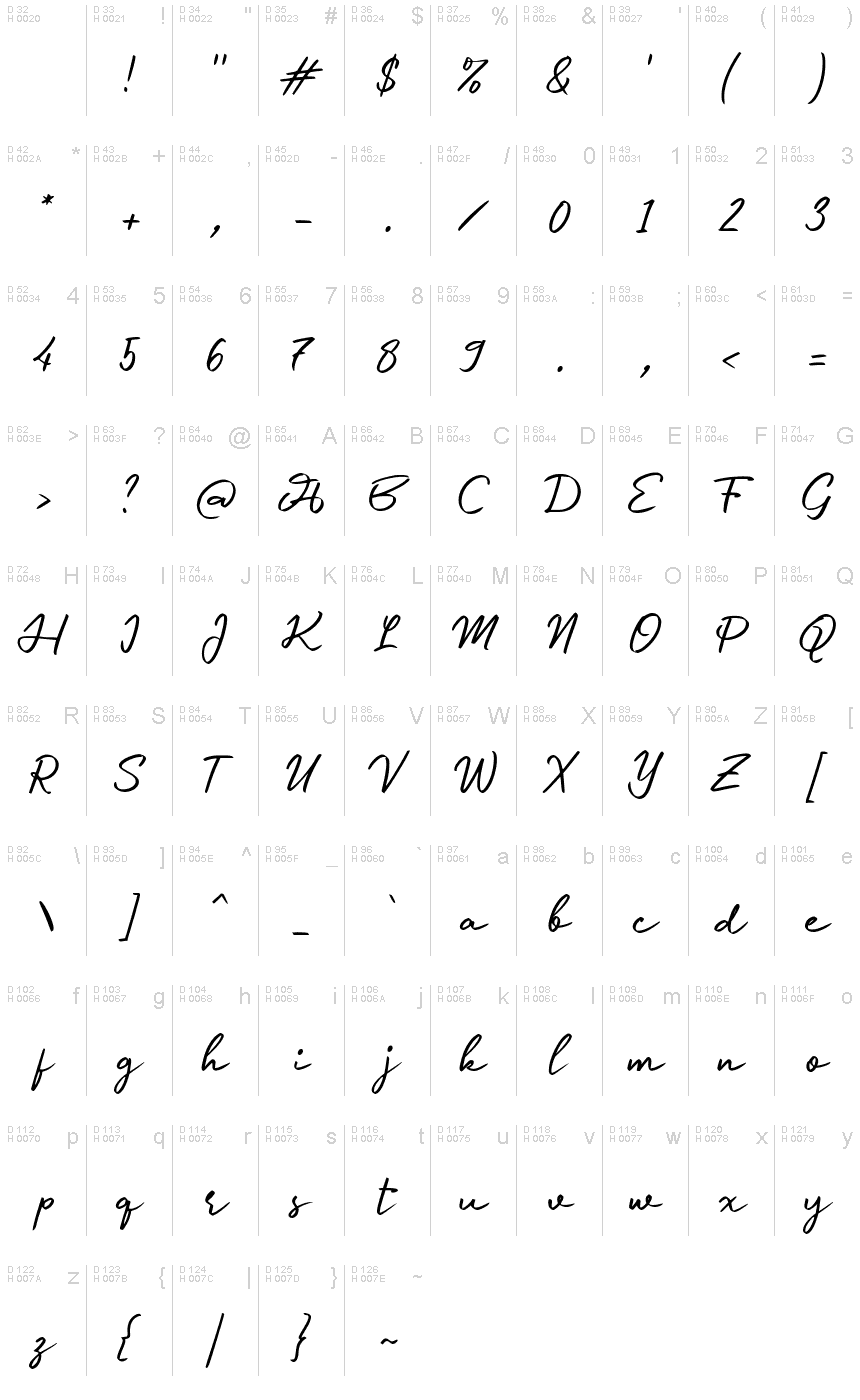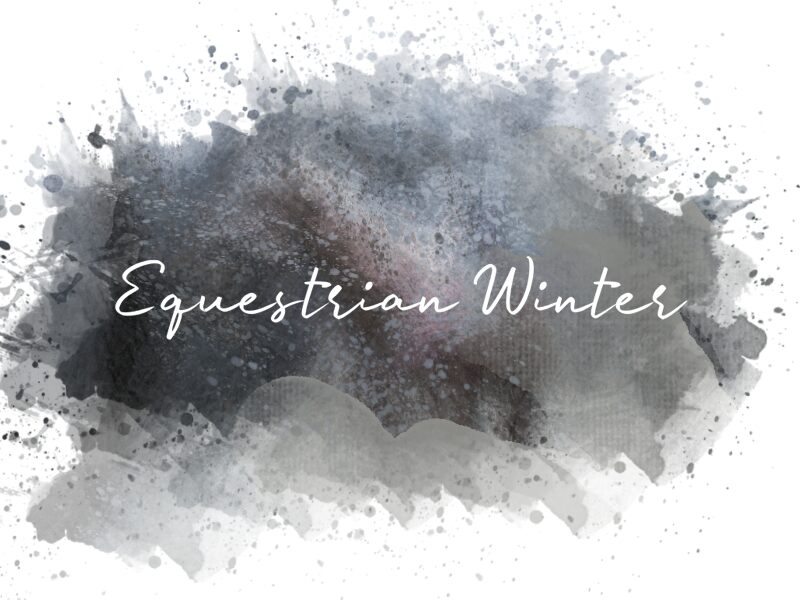
Equestrian Winter
Equestrian Winter is a charming handwritten font that exudes warmth and friendliness. Designed by wep, this semi-light typeface boasts elegant curves and playful strokes, making it perfect for a variety of projects that require a touch of whimsy. Whether you're designing wedding invitations or creating an eye-catching logo for your business, Equestrian Winter will add a delightful personal touch to your work. Its unique style is ideal for branding, packaging, social media graphics, and much more. Embrace the cozy vibe of winter with this captivating font that will bring joy and personality to all your creative endeavors.